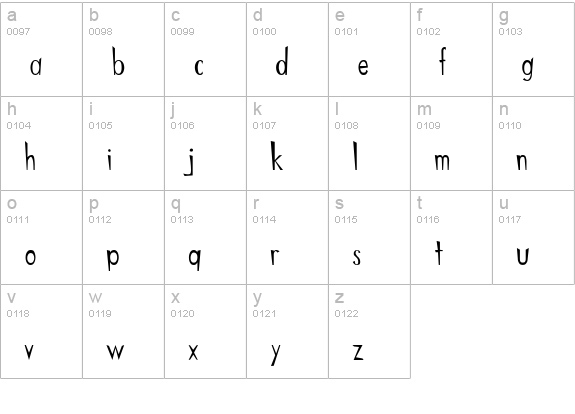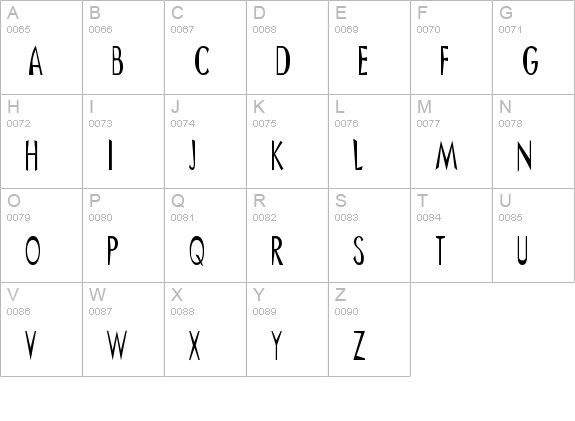
ChineseMenu Normal Font Details
ChineseMenu Normal is the standard, neutral variant in the ChineseMenu typeface family \xE2\x80\x94 well suited to general body text, paragraphs, and standard typographic work.
ChineseMenu Normal font is a beautifully crafted typeface that captures the essence of traditional Chinese calligraphy with a modern twist. Its elegant strokes and intricate details make it a perfect choice for adding a touch of sophistication to your designs. This versatile font is suitable for a wide range of applications, from branding to packaging to editorial design. The best part? ChineseMenu Normal font is available for free download at FontsMarket.com. Now you can effortlessly elevate your projects with this stunning font without any cost. Don't miss out on this opportunity to enhance your designs with the timeless beauty of ChineseMenu Normal font. Download it today and start creating captivating visuals that will leave a lasting impression.